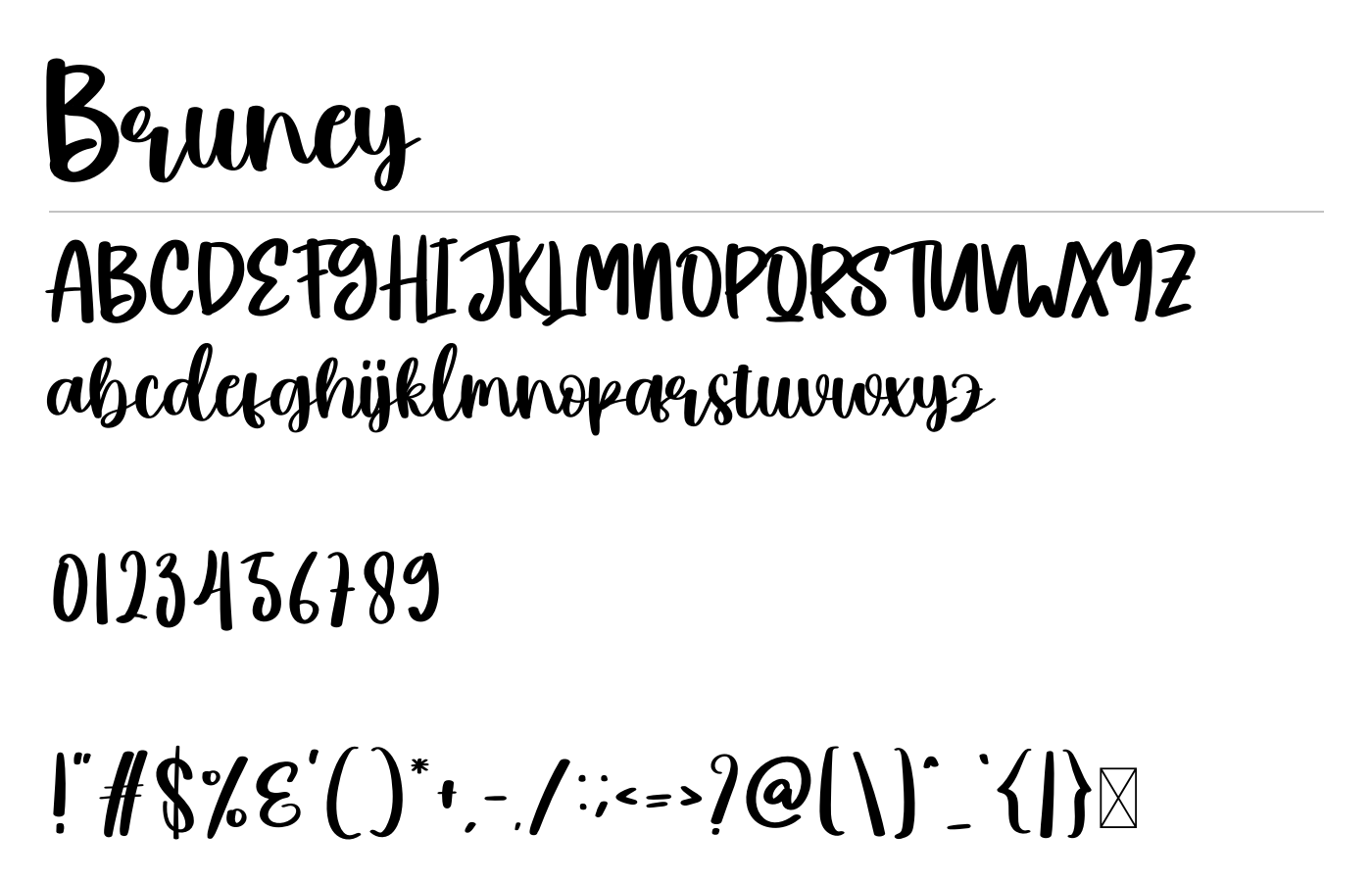
Bruney is a lively, handwritten script font with a friendly and casual vibe. Its moderately thick strokes and smooth, rounded letterforms give it a welcoming and approachable personality, perfect for adding a personal touch. This font works well for branding, invitations, social media graphics, and any design seeking a fun yet stylish hand-drawn feel.
Bruney Font
About Bruney Font